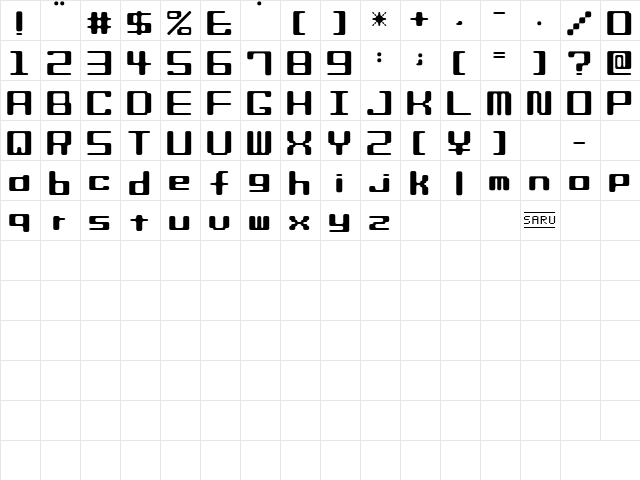
Biscuits (sRB) Regular
Design Context for Biscuits (sRB) Typeface
Biscuits (sRB) takes a measured approach to typography — its balanced proportions and neutral character make it a reliable workhorse for both digital and print work.